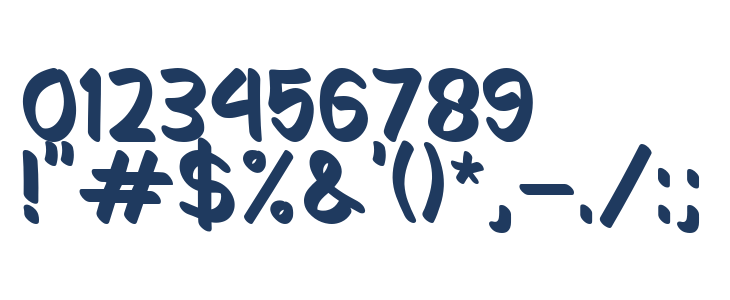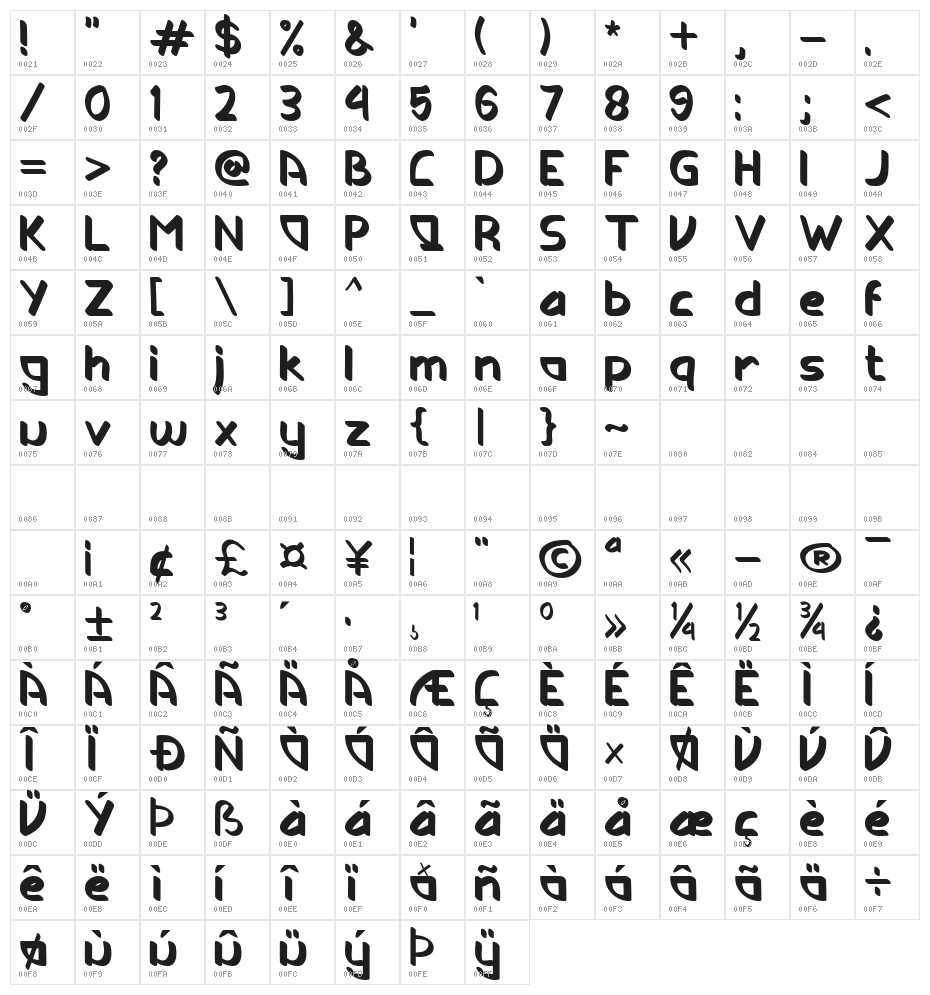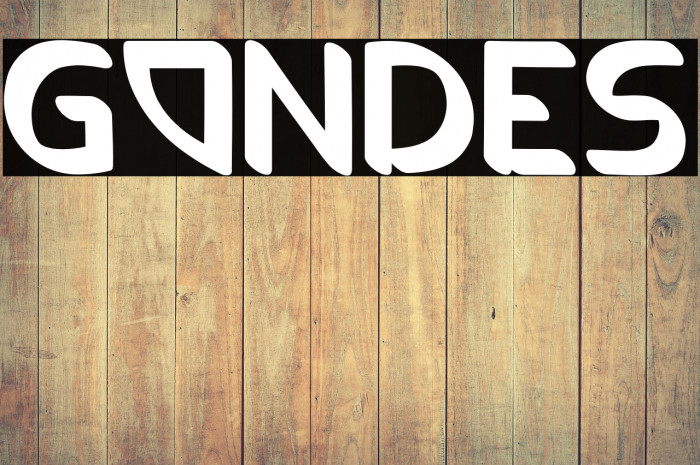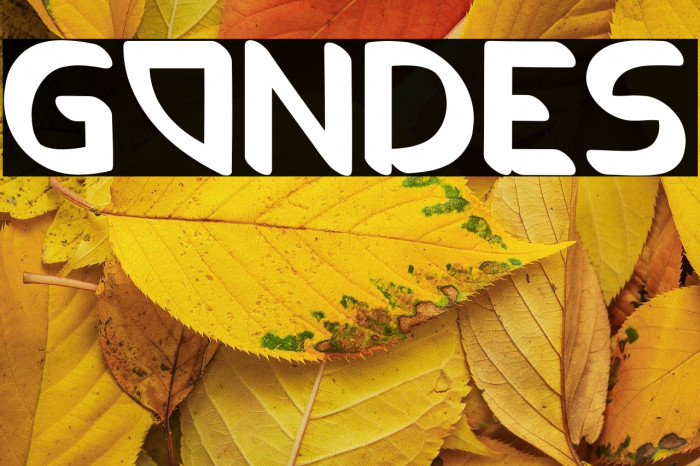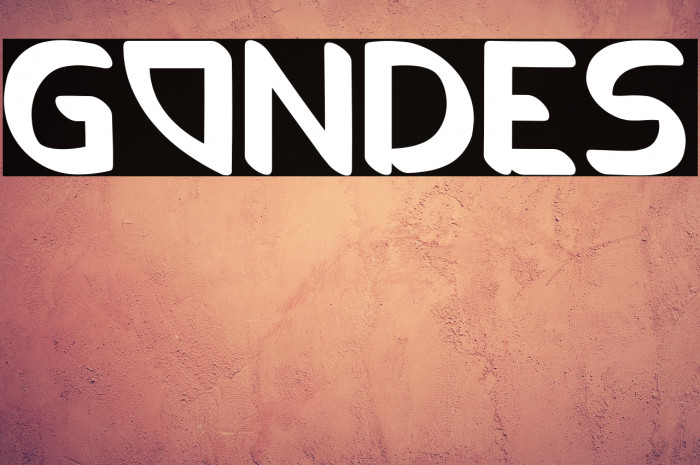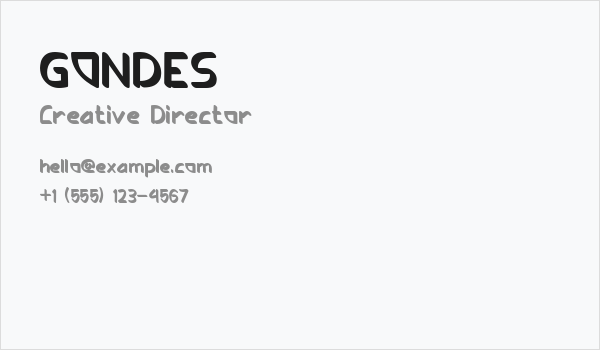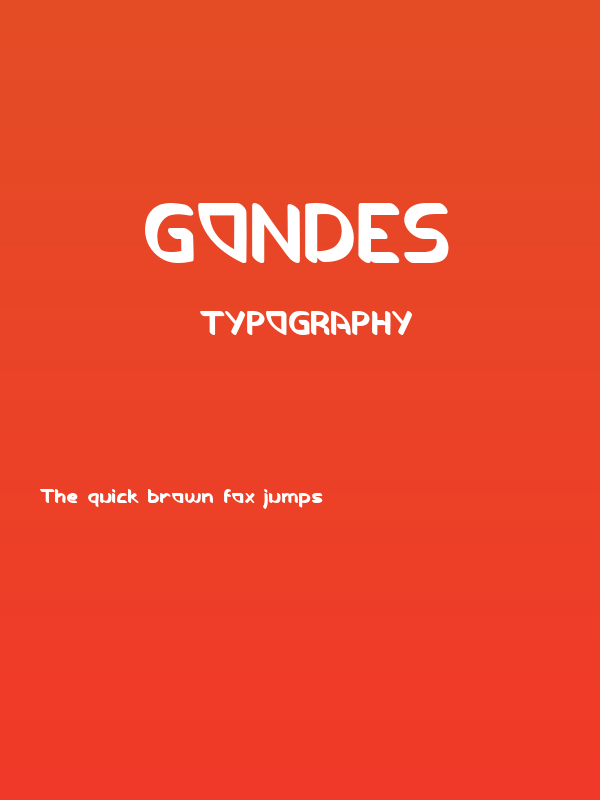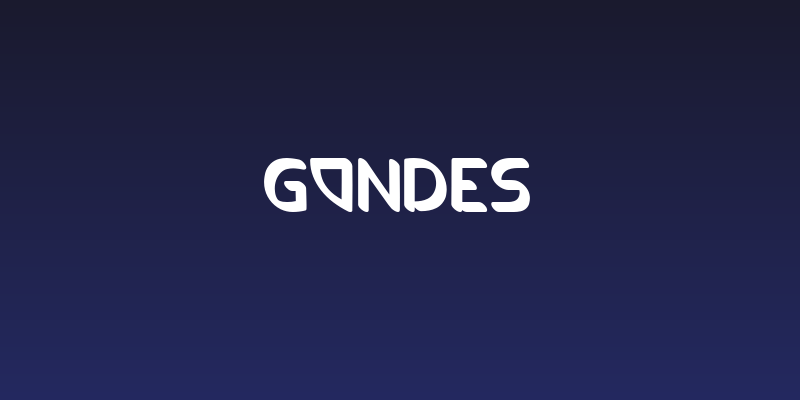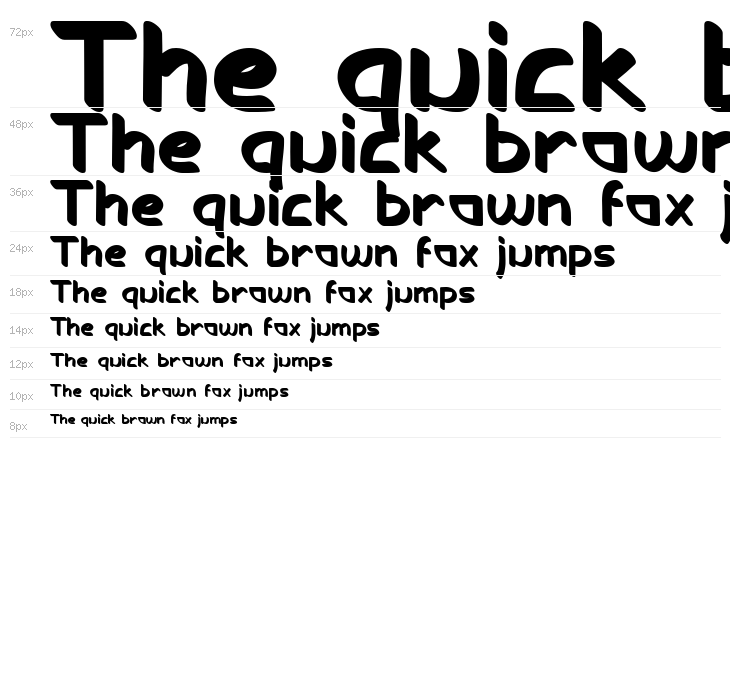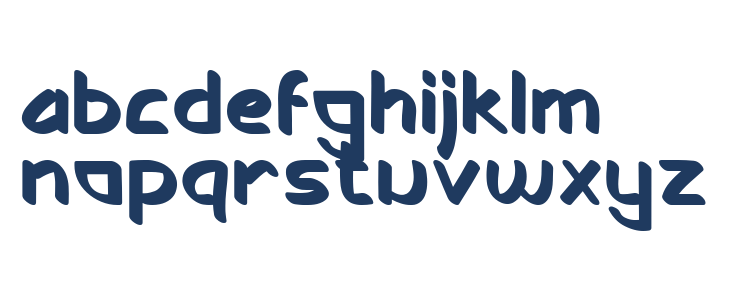
GONDES Font
GONDES Description
This font exhibits a playful and bold style with rounded edges and a slightly irregular form, giving it a hand-drawn appearance. The uppercase letters are distinct with a quirky charm, while the lowercase letters maintain a consistent flow. Numbers and special characters follow the same playful theme, making the font suitable for creative and informal designs. The overall look is friendly and approachable, perfect for projects that require a touch of whimsy.
| Proposed Projects | Ideal for children's books, playful branding, posters, and creative invitations. |